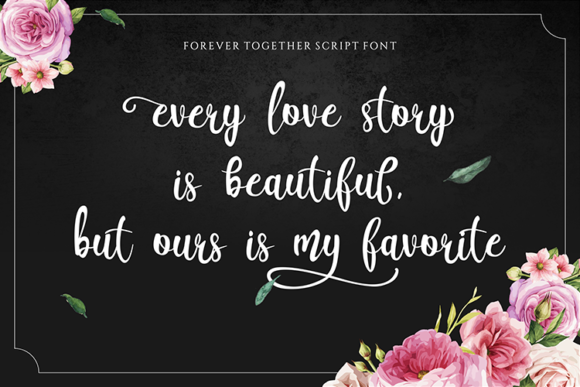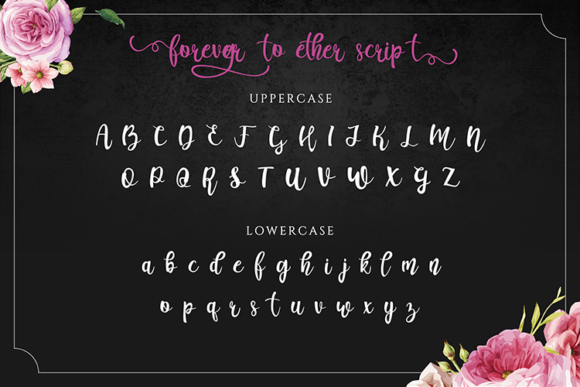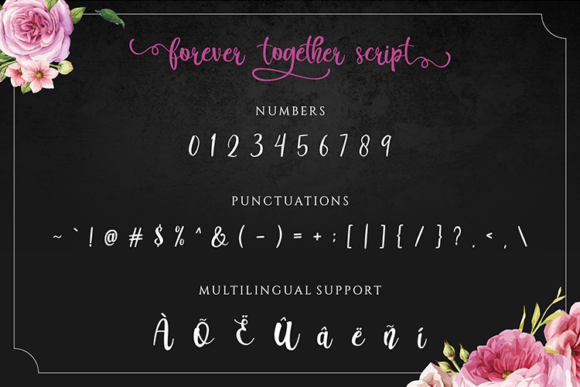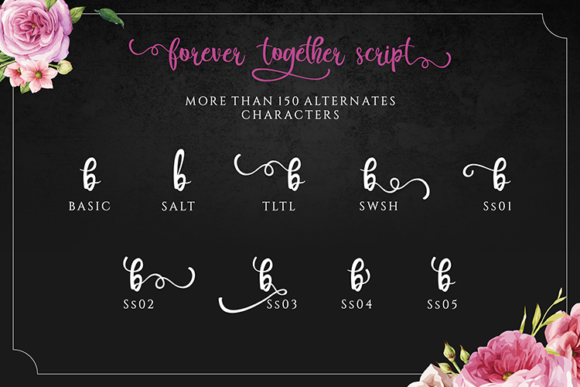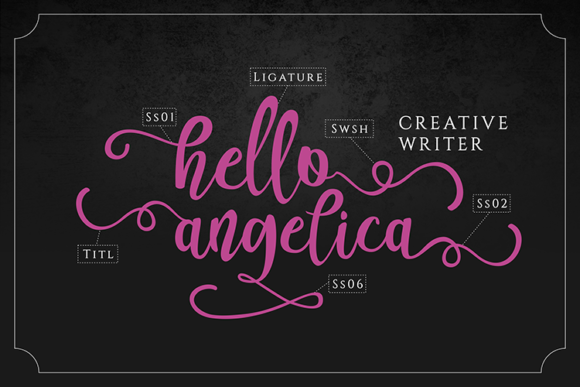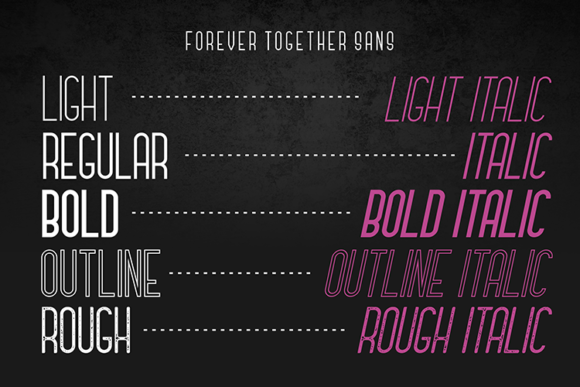
The Perfect Pair: Unlocking the Magic of Forever Together Duo Font
There’s a moment when words flow effortlessly onto the page, and the design begins to take shape. It’s the spark that ignites a creative process, and for designers, it’s a moment to savor. But what happens when that perfect combination of style and substance is just a click away? Enter the Forever Together Duo Font, a romantic script and sans serif pairing that will forever change the way you create.
As a designer, you know the value of a well-crafted font duo. It’s the difference between a beautiful design and a stunning one. The Forever Together Duo Font is more than just a pairing – it’s a statement piece that elevates your work to new heights. With its striking and elegant style, this duo is perfect for creating unique designs that leave a lasting impression.
Forever Together Duo Font Key Features
- Unique Characteristics: Forever Together Duo Font features a modern and elegant design, with intricate details and subtle nuances that make it stand out from other fonts.
- Font Pairing: This font is designed to be paired with other fonts, creating a harmonious and visually appealing combination that enhances the overall design.
Designer Review: Forever Together Duo Font
As a designer, I was excited to explore the Forever Together Duo Font, a beautiful script font designed for romantic and sentimental purposes. Here’s my honest review.
- ✨ Elegant and whimsical design: The font’s script style is reminiscent of hand-written love letters, making it perfect for wedding invitations, love letters, and other romantic designs.
- ✨ Beautiful connections: The duo font style allows for seamless connections between letters, creating a flowing and smooth look.
- ✨ High-quality fonts: The font comes in two weights, light and regular, which can be used separately or together to create a striking visual effect.
- ⚠️ Limited legibility: The script style can make it difficult to read, especially in smaller font sizes or when used for body text.
- ⚠️ Limited character set: The font is not suitable for languages that require a wide range of characters, such as Chinese or Japanese.
- ⚠️ Not ideal for digital use: The font’s design may not be optimized for digital use, which can lead to pixelation or distortion.
The Forever Together Duo Font is a beautiful script font that excels in romantic and sentimental designs. However, its limitations in legibility and character set make it less suitable for general use. If you’re looking for a font to add a touch of elegance to your designs, this font is worth considering. But if you need a font for body text or digital use, you may want to look elsewhere.
Tips for Getting the Most Out of Forever Together Duo Font
Use Forever Together Duo Font for romantic and wedding-themed designs, such as invitation templates, save-the-date cards, and love quotes.
Combine Forever Together Duo Font with other fonts to create a unique and eye-catching design.
Forever Together Duo Font is perfect for:
Wedding invitations and save-the-date cards.
Romantic quotes and love messages.
Birthday and anniversary cards.
Valentine’s Day and other love-themed designs.